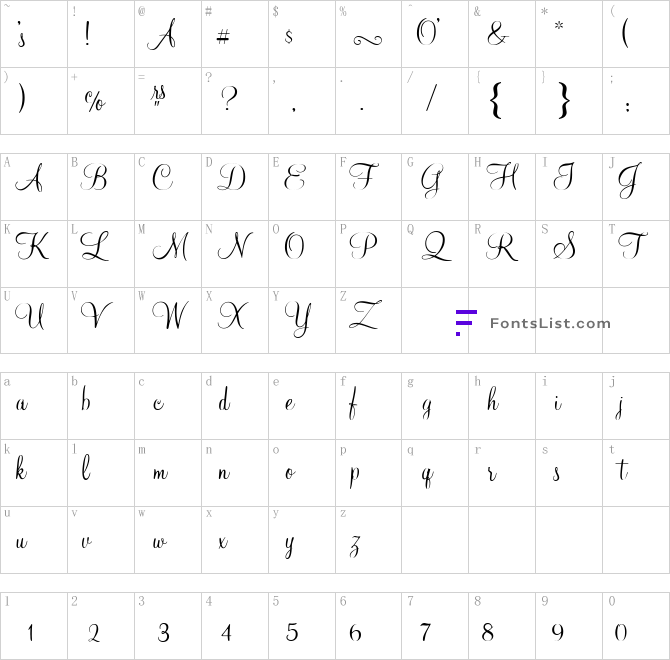
- Font Name:At Mahogany Script
At-Mahogany-Script.ttf is a very beautiful artistic font, At-Mahogany-Script.ttf is widely used in the design and printing of various books and pictures,At-Mahogany-Script.ttf has a strong visual impact,At-Mahogany-Script.ttf is a commonly used font in newspapers, magazines and books, and is used in posters, e-commerce Poster design, store design, logo design, font design and other fields.At-Mahogany-Script.